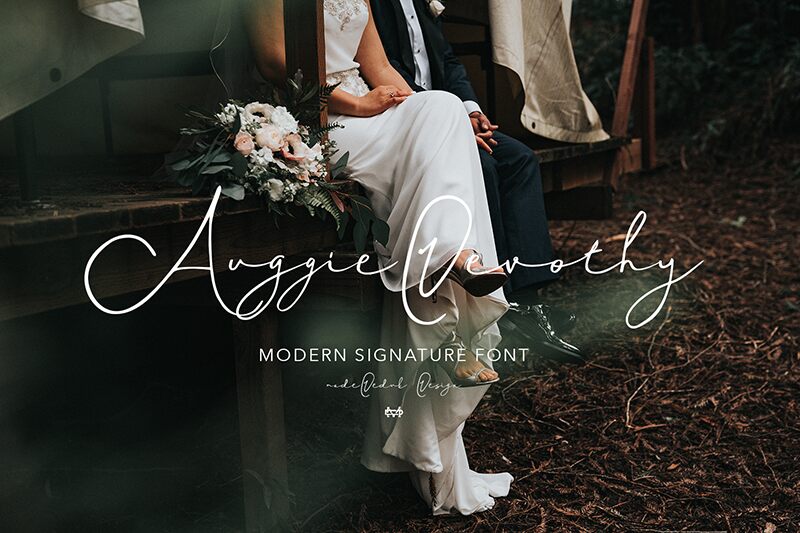
Auggie Devothy Demo
Auggie Devothy font delivers light, elegant designs with its flowing style and organic feel. MadeDeduk designed it as a handwritten font with a signature-like appearance which is delicate in nature and exceptionally graceful. With only lowercase letters, its use can be quite limited to the standard possibilities; however, creativity can widen the field!
Try Auggie Devothy in logos, headers, stationery decor, apparel design projects. Other uses include cards (greeting or wedding invitations), posters (or another print), packaging products (for perfumes or cosmetics) alongside branding projects for individuals of businesses. The free decorative typeface is delightful but looks even better while combined with others.